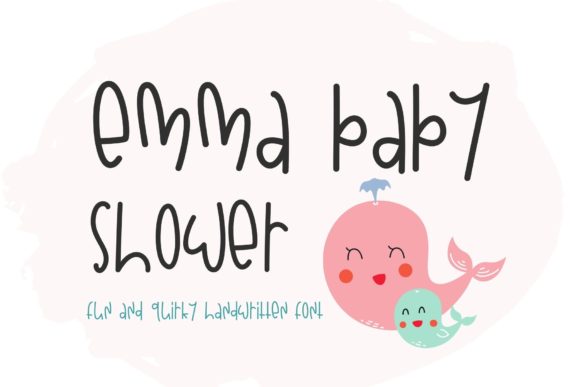
**Introducing Emma Baby Shower: The Enchanting Font for Unforgettable Memories**
Step into a world of whimsy and elegance with Emma Baby Shower, a captivating handwritten font that will effortlessly elevate your creations. Inspired by the joys of motherhood and the precious moments of childhood, this font is meticulously crafted to bring a touch of magic to your designs.
**Unleash Your Creativity with Endless Possibilities**
Emma Baby Shower's versatility knows no bounds. Whether you're designing heartfelt wedding invitations, creating stunning social media posts, or crafting beautiful stationary art, this font will seamlessly adapt to your vision. Let your imagination soar as you use Emma Baby Shower to:
- **Celebrate life's milestones:** Announce the arrival of a new baby, commemorate birthdays, or mark special occasions with a touch of heartfelt charm.
- **Create enchanting invitations:** Design wedding invitations that exude elegance and warmth, inviting guests to a day filled with love and laughter.
- **Craft unforgettable social media posts:** Capture the precious moments of motherhood and share them with the world in a visually captivating way.
- **Design beautiful stationery art:** Create personalized letterheads, notepads, and cards that reflect your unique style and bring joy to your everyday correspondence.
**Fall Head Over Heels for its Irresistible Charm**
Emma Baby Shower's playful and whimsical nature is sure to win your heart. Its delicate strokes, charming curves, and subtle flourishes effortlessly convey the joy and wonder of your special moments. Each letter dances upon the page, creating a visual symphony that will leave a lasting impression.
**The Perfect Font for Capturing Precious Memories**
Preserve the precious moments of motherhood and childhood with Emma Baby Shower. Its timeless appeal will ensure that your creations remain cherished keepsakes for years to come. Use Emma Baby Shower to:
- **Create lasting baby announcements:** Welcome your little one into the world with a font that captures the pure joy and excitement of becoming a parent.
- **Design heartwarming baby shower invitations:** Invite loved ones to celebrate the arrival of your precious bundle of joy with a font that reflects the love and anticipation surrounding your new addition.
- **Craft keepsakes that will be treasured:** Create scrapbooks, photo albums, and other keepsakes that will preserve the memories of your children's early years in a truly special way.
**Experience the Magic of Emma Baby Shower Today**
Join the countless creators who have fallen in love with the enchantingé…力 of Emma Baby Shower. Let this font inspire you to create designs that are both beautiful and meaningful.